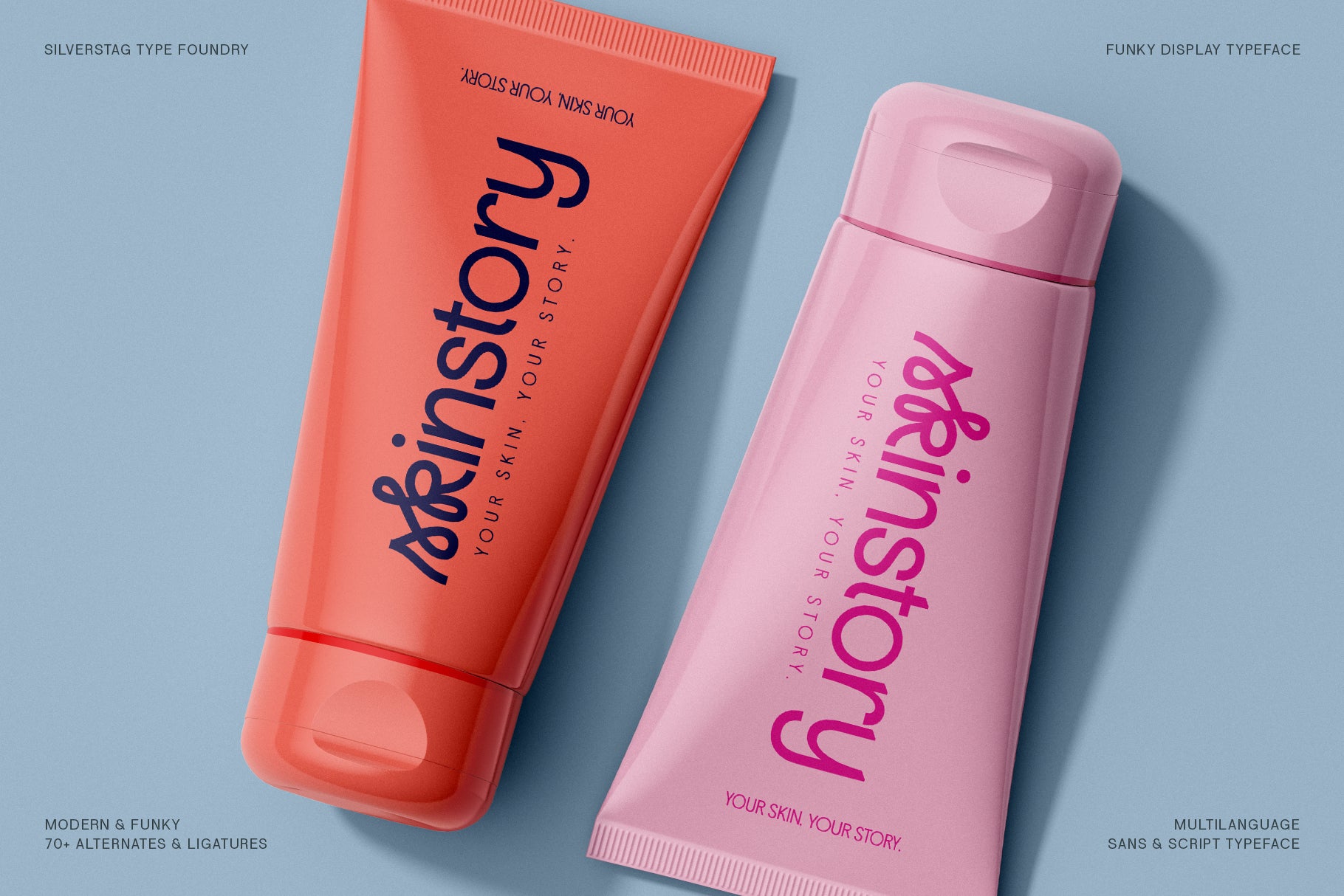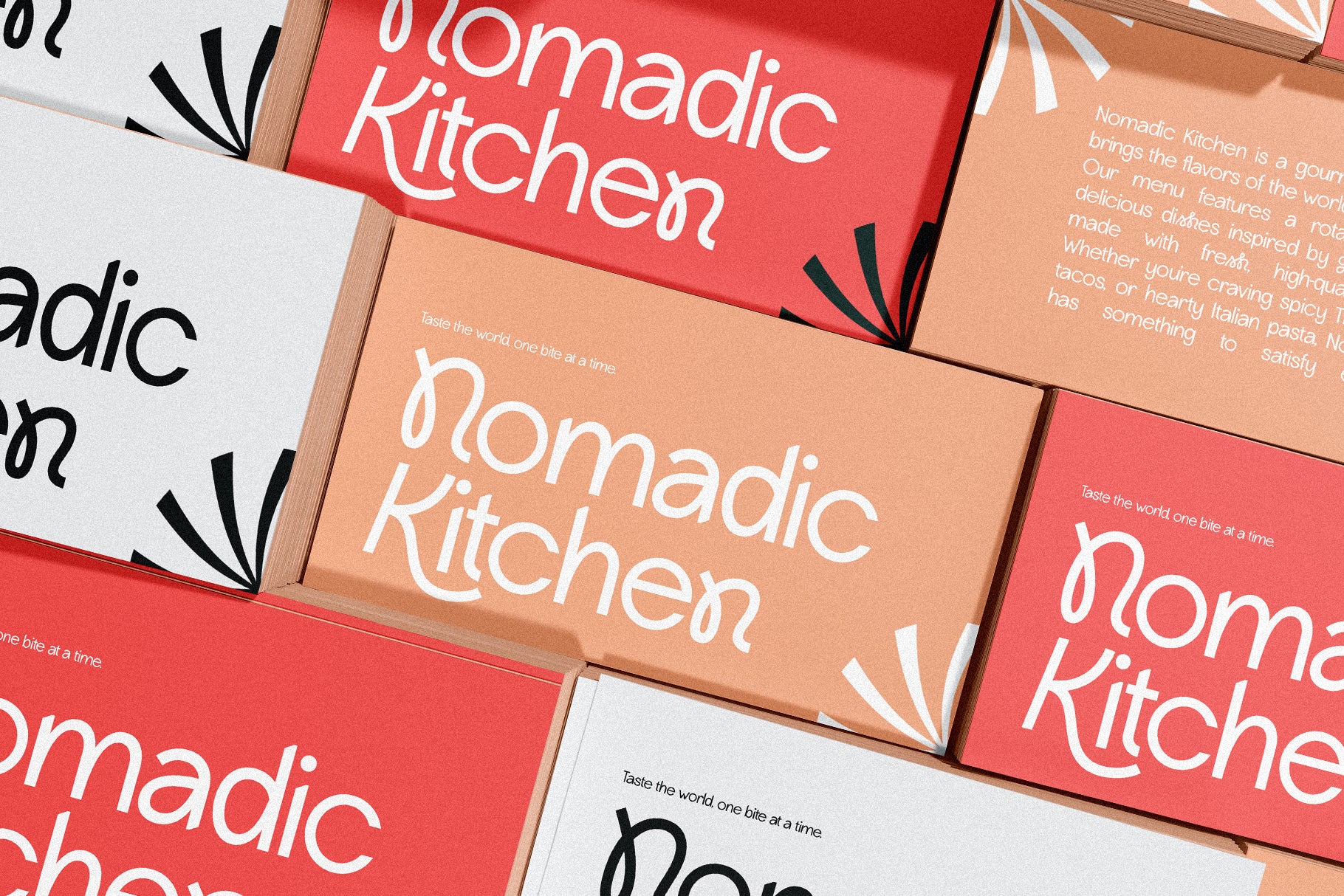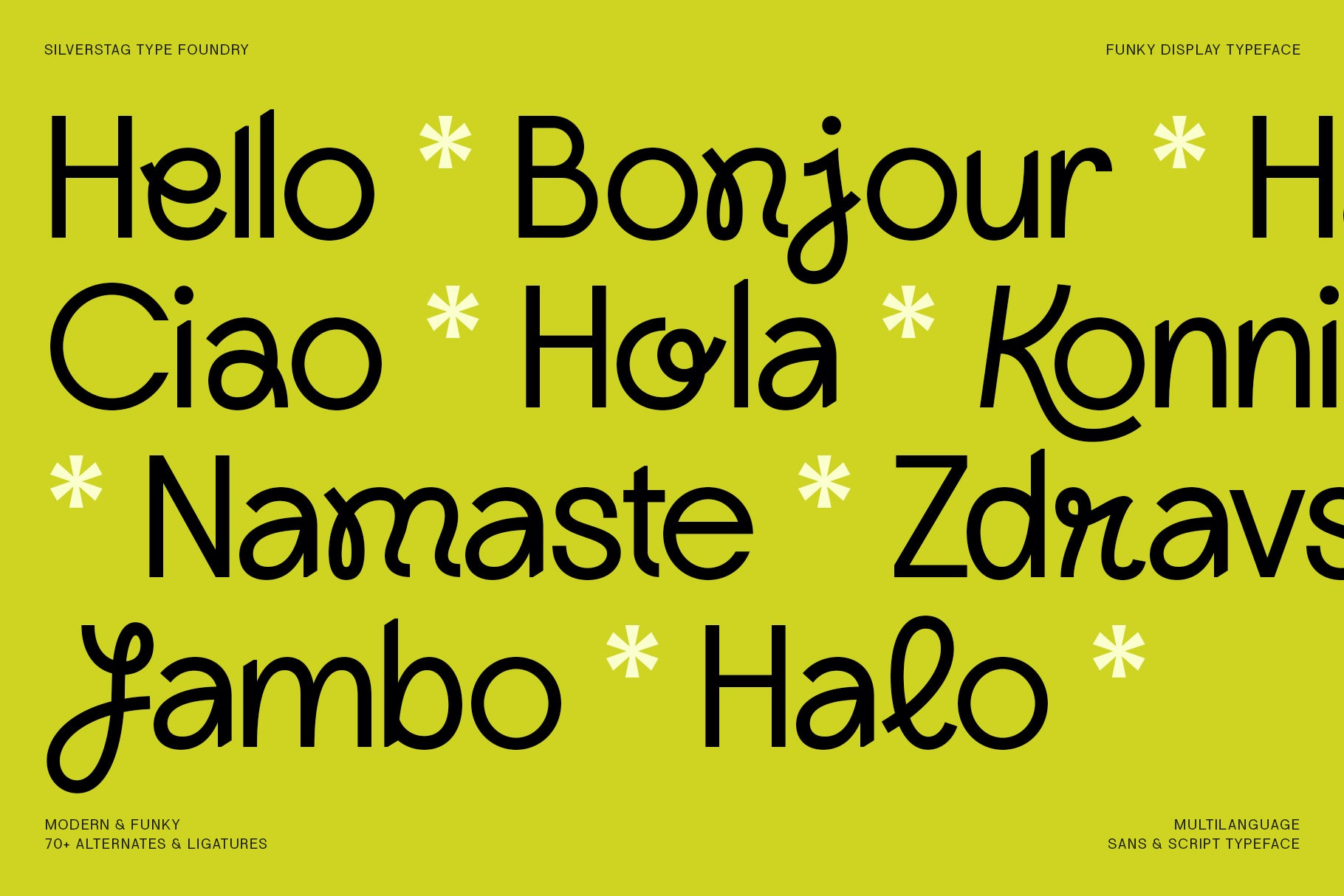
Lightshift is a bold and expressive display typeface that radiates energy and personality. With a playful blend of retro curves, thick strokes, and script-inspired details, Lightshift is perfect for designers looking to make a fun, funky, and modern impact.
This dynamic typeface includes 4 distinct styles—Regular, Round, Outline, and Round Outline—allowing you to mix and match moods with ease. Whether you’re aiming for bold clarity or quirky charm, each version brings its own creative edge.
With 70+ ligatures and alternates, Lightshift gives you the freedom to create custom word shapes that are vibrant, fluid, and totally original. From standout logos to scroll-stopping social media graphics, Lightshift adapts effortlessly across branding, packaging, youth campaigns, and more.
Supporting 90+ languages, it’s also ready for global projects across print and digital design.